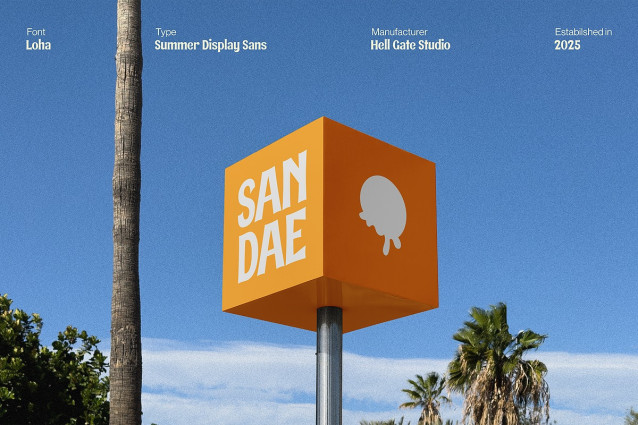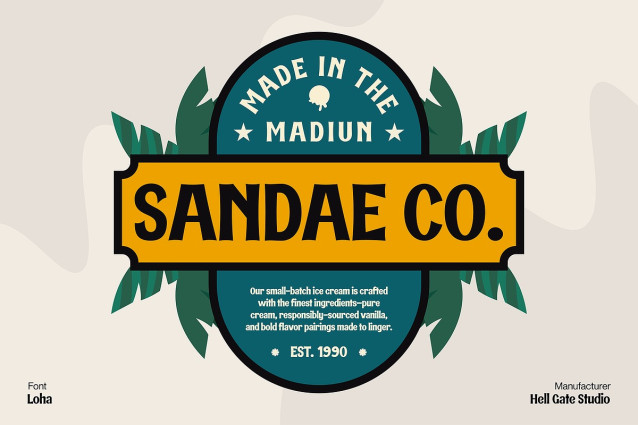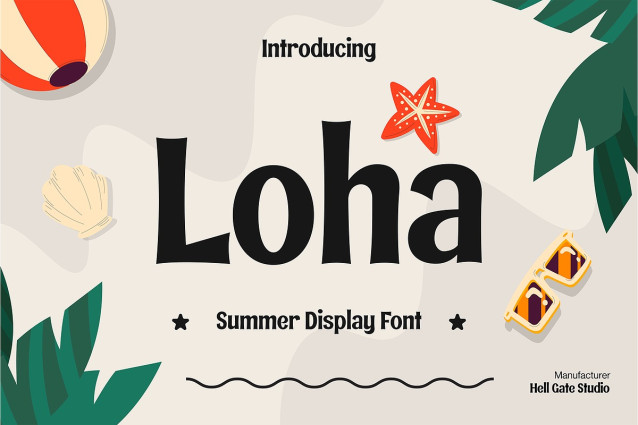
Loha Display Font
Loha Display Font is your go-to Summer Display Font infused with a cheerful and chilled-out vibe. Specifically designed for refreshing summer themes, Loha’s 1 variant is as vibrant and dynamic as a summer day. Effortless to modify in terms of text and color – Loha puts the power of high-end design at your fingertips.